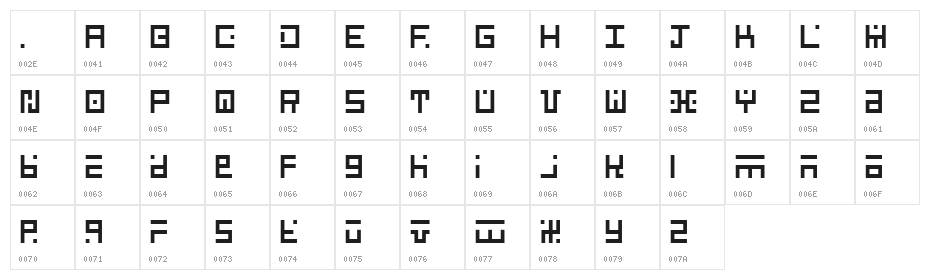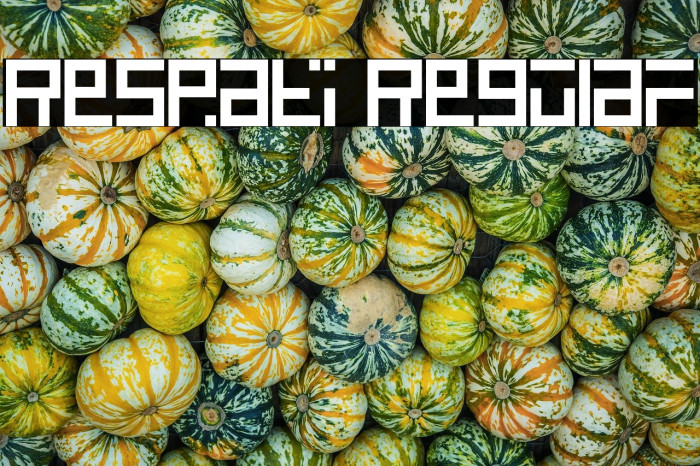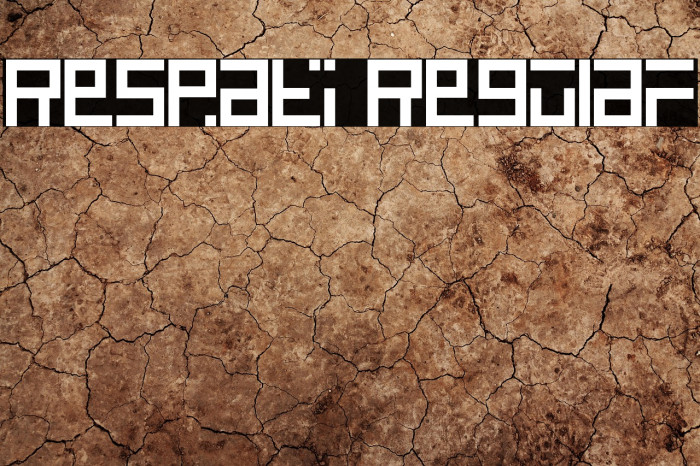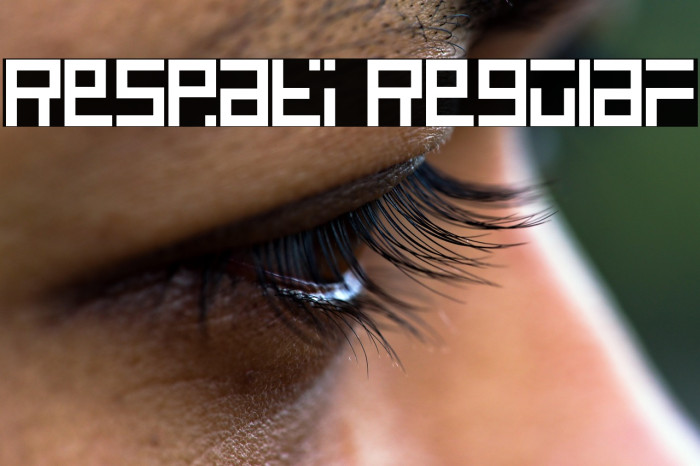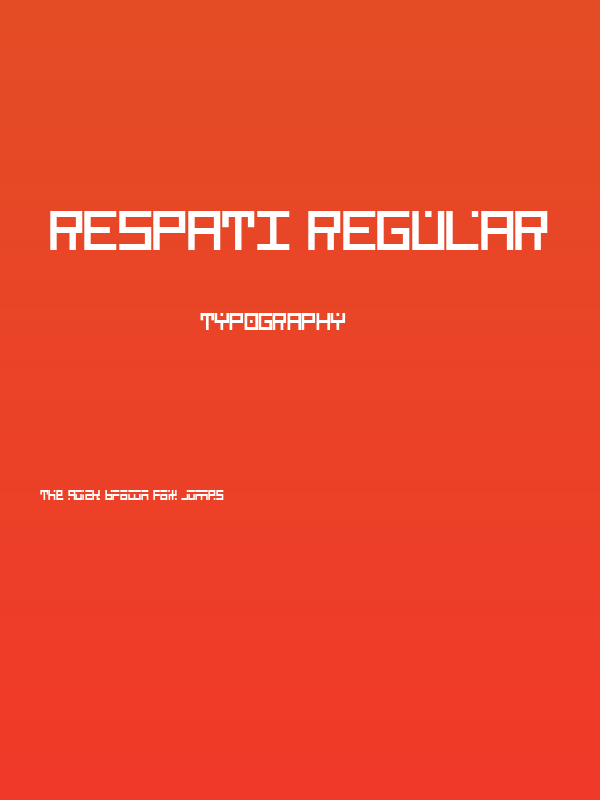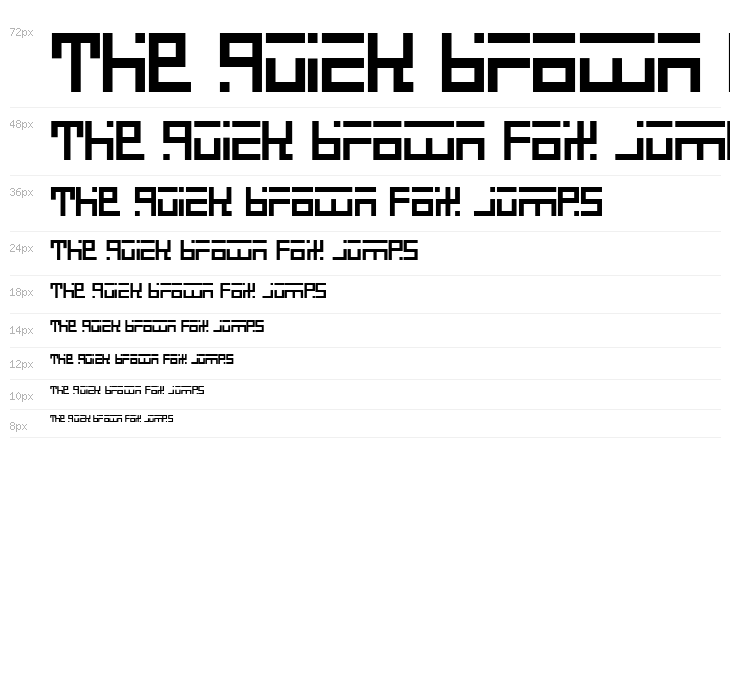
Respati Regular Font
Respati Regular Description
This font features a highly geometric and structured design, characterized by its blocky and angular letterforms. Each character is composed of straight lines and right angles, giving it a distinctly modern and digital appearance. The uniformity in line thickness across all characters contributes to a cohesive and consistent look. The font includes unique design elements, such as small square dots and lines within certain letters, adding a decorative touch. Its bold and striking presence makes it suitable for attention-grabbing applications.
| Proposed Projects | Ideal for digital interfaces, tech-themed designs, video game graphics, and futuristic branding. |